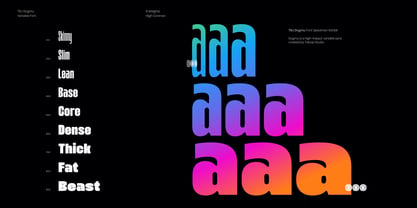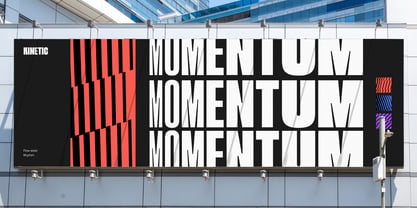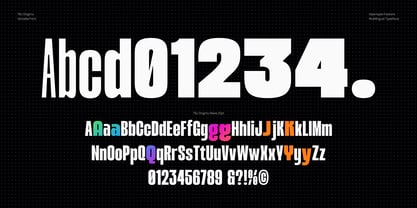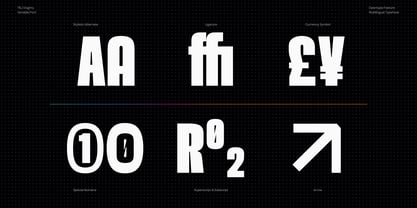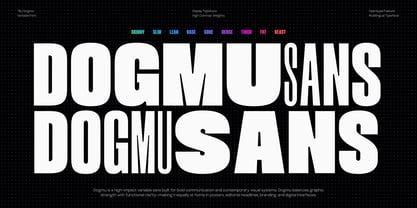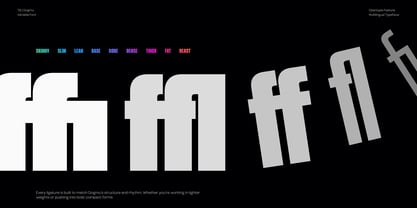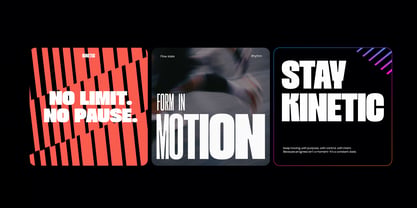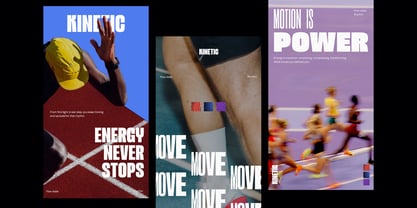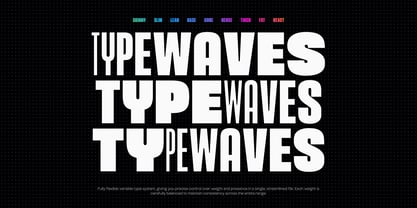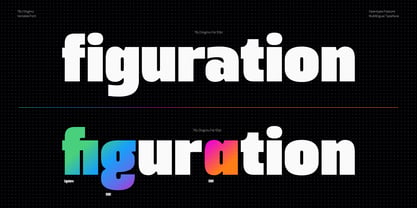
TBJ Dogmu
by Taboja Studio
The TBJ Dogmu Font Family was designed by Yusilo Oktaprima Ardani and published by Taboja Studio. TBJ Dogmu contains 9 styles and family package options. More about this family
TBJ Dogmu is a bold and powerful sans serif typeface built for maximum visual impact. Designed with strong proportions, solid structure, and confident letterforms, Dogmu delivers a striking presence across headlines, posters, branding, and digital layouts. This font family features an expressive weight range from Skinny to Beast, allowing extreme flexibility—from tight, condensed compositions to heavy, dominant typography. Each weight maintains a consistent structure while amplifying intensity as it grows thicker, making it ideal for layered designs, dynamic layouts, and bold brand statements. TBJ Dogmu blends modern sans serif clarity with an urban, high-energy attitude. Its compact shapes and powerful strokes make it perfect for logos, sports branding, merchandise, editorial covers, packaging, and attention-grabbing social media graphics. Whether used in its lightest Skinny form or its heaviest Beast weight, Dogmu is engineered to command attention while staying clean, legible, and versatile across print and screen. To fully enjoy everything this font has to offer, programs like Adobe Illustrator, Photoshop, or Indesign will help you get the most out of all the glyphs and features. And if you spot anything unusual or just want to share some feedback, don’t hesitate to let us know! We're always looking to improve and fine tune.
Designers: Yusilo Oktaprima Ardani
Foundry: Taboja Studio